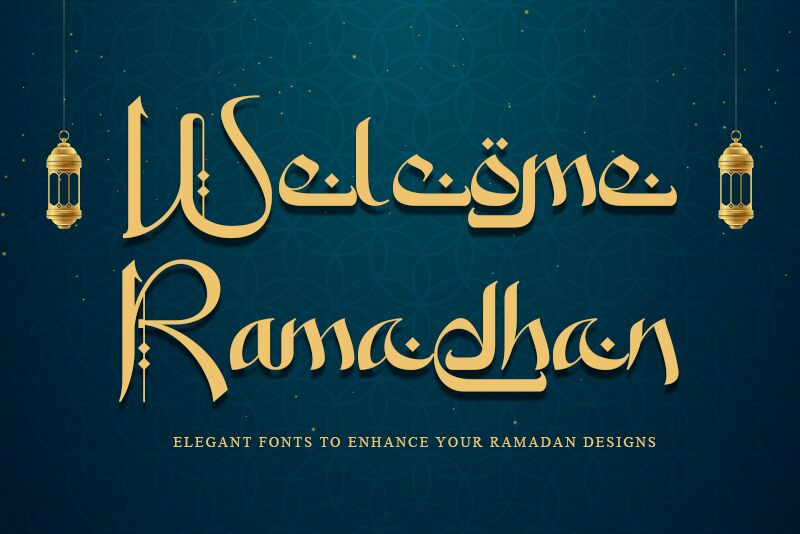
"Welcome Ramadhan" is a captivating Arabic font designed by Letterara. Crafted with a striking calligraphic style, this font exudes a sense of elegance and cultural authenticity. The smooth, flowing strokes and intricate flourishes create a visually captivating aesthetic, inviting the viewer to immerse themselves in the rich heritage and tradition that this font represents.
The expansive, expansive nature of the letterforms lends a grand, ceremonious quality to the font, making it an excellent choice for formal invitations, event branding, or religious/spiritual applications. Its distinctive style also lends itself well to packaging design, book covers, and other display-oriented uses where a strong visual impact is desired.
Whether used in digital or print mediums, "Welcome Ramadhan" is a font that beautifully captures the essence of the holy month, seamlessly blending tradition and modern sensibilities. Its versatility and captivating visual appeal make it a valuable asset for designers seeking to create impactful, culturally-resonant designs.